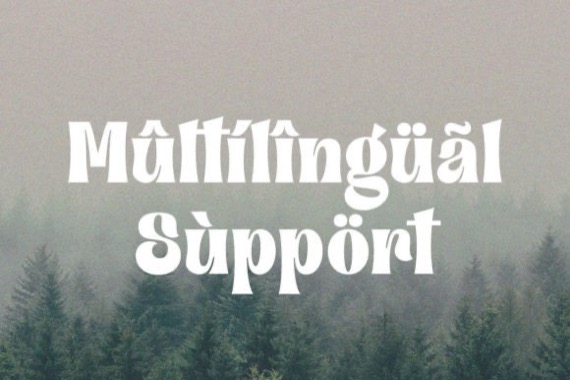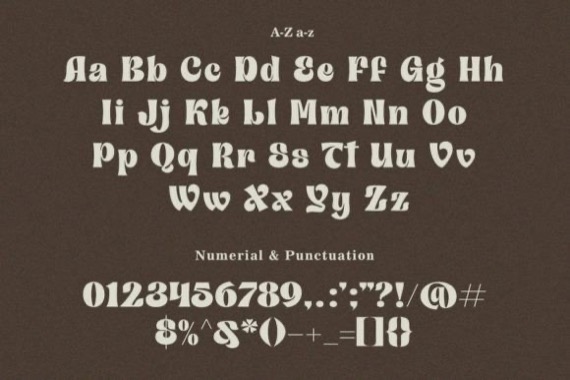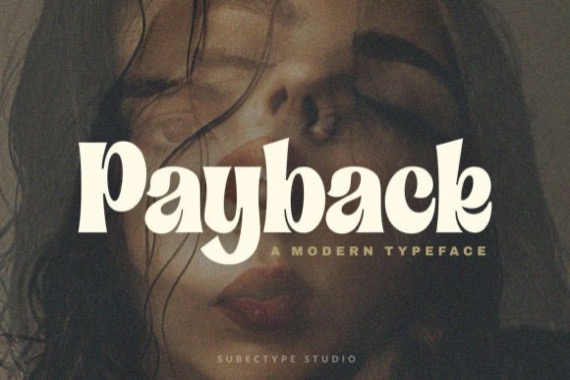
Introducing Payback Font by Subectype, is inspired by famous minimalist brands with a unique style & casual look. This lovely font is perfect for an elegant & luxurious logo, branding, title projects, fashion brand, magazine, clothes, lettering, quotes, and so much more.
Payback Display Serif Font